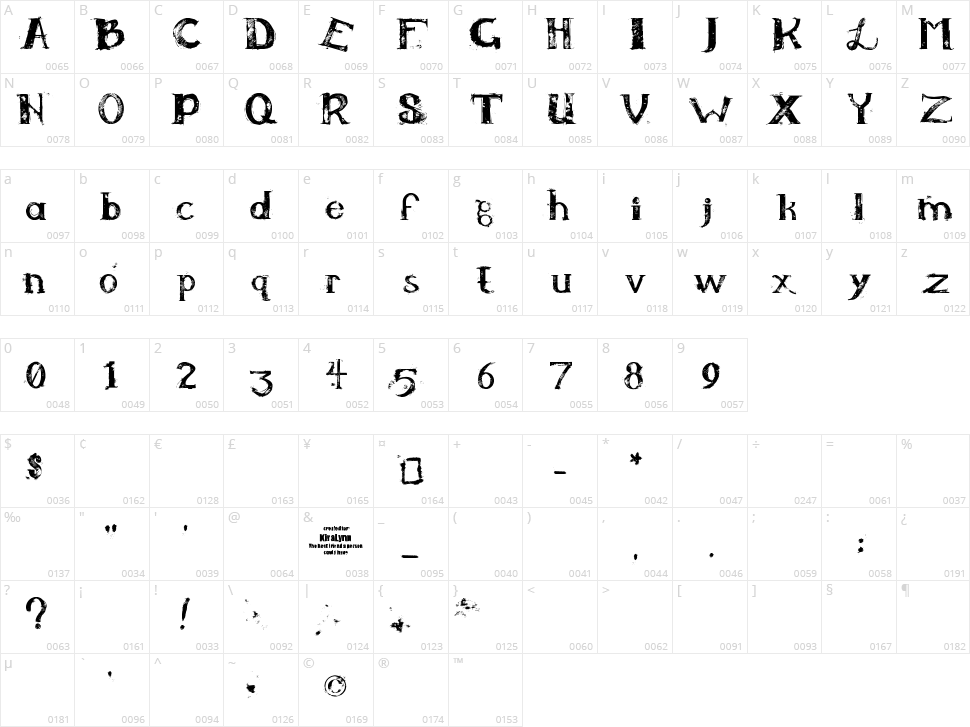
Created using Adobe Photoshop 7 and Corel Painter 9.
\,| and ~ create a space with a grunge spatter. { and } make a spatter on the letter you've just typed.